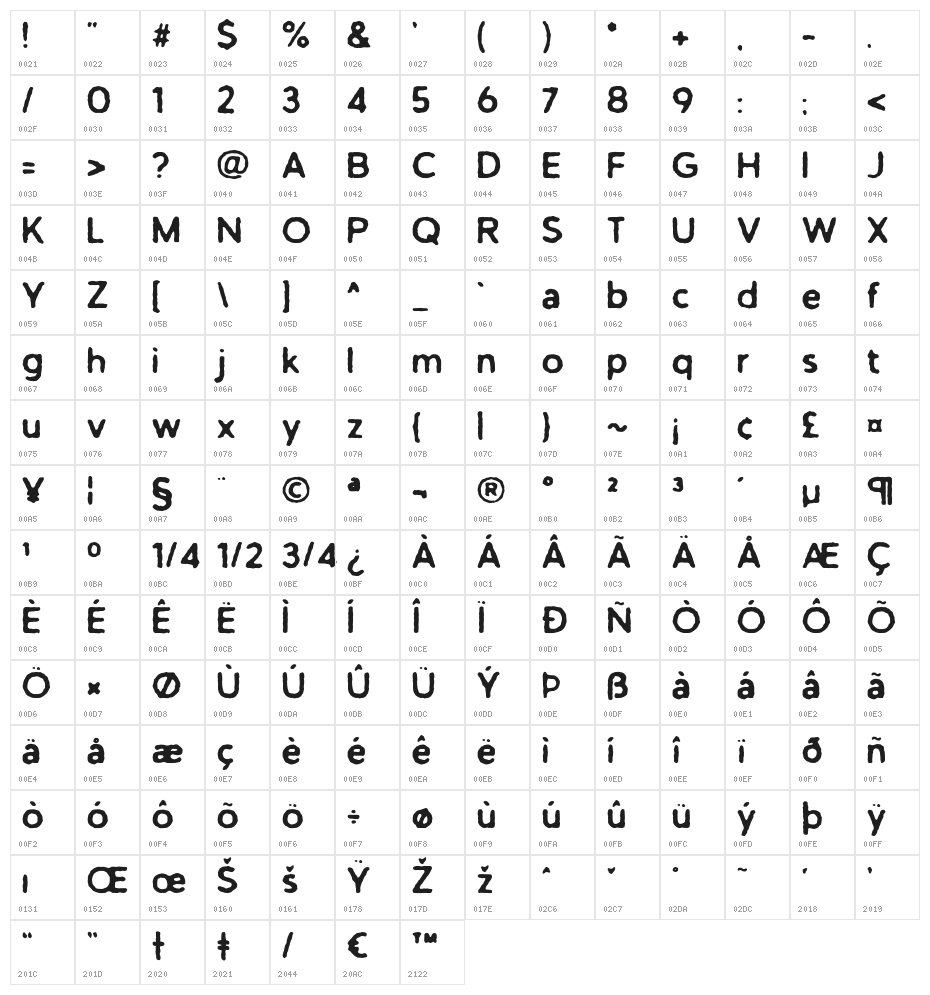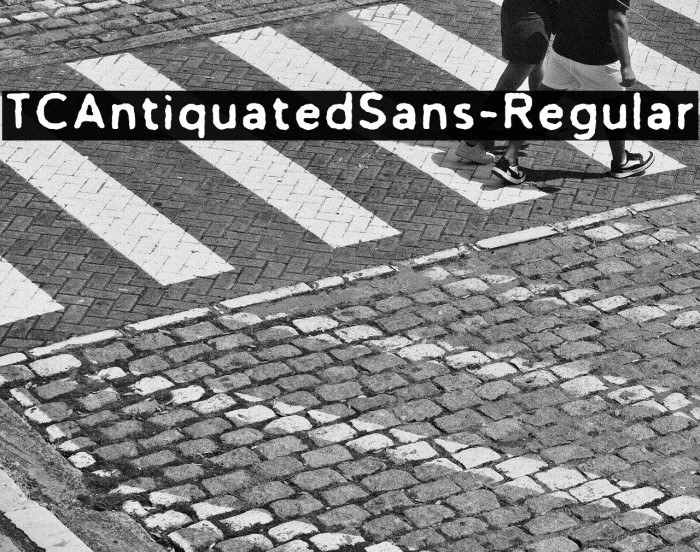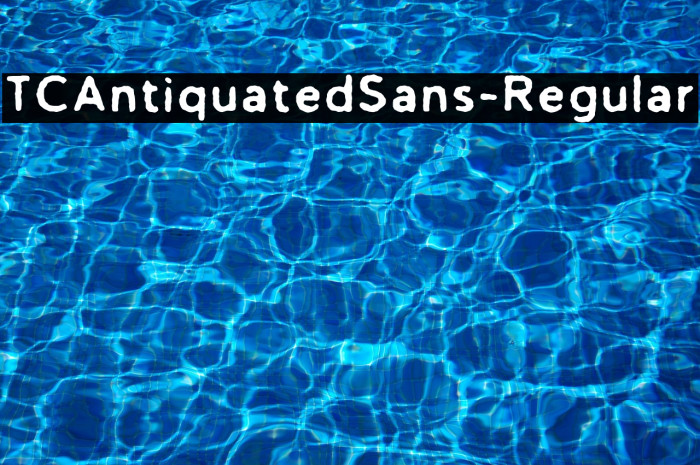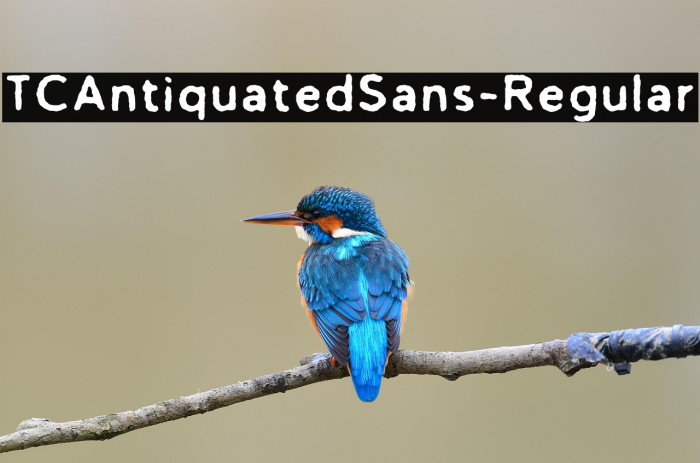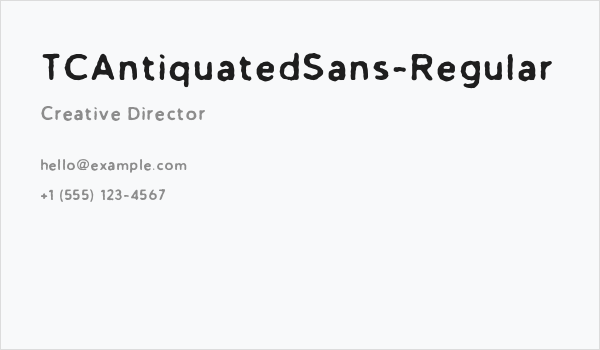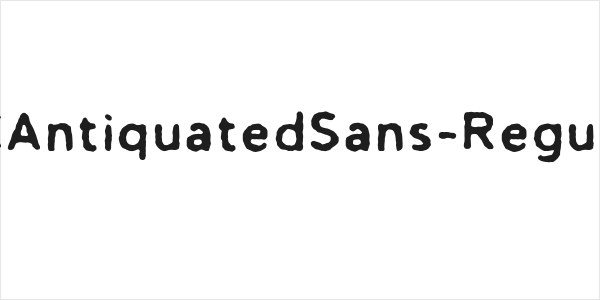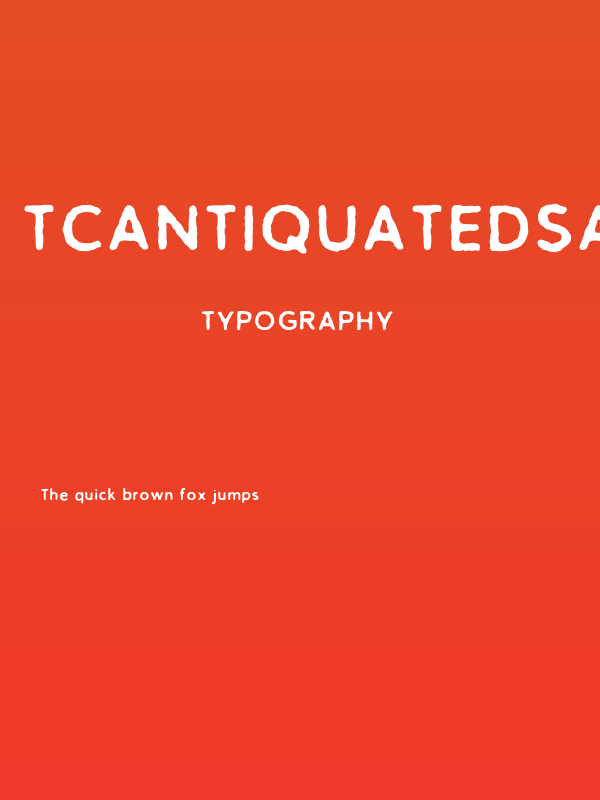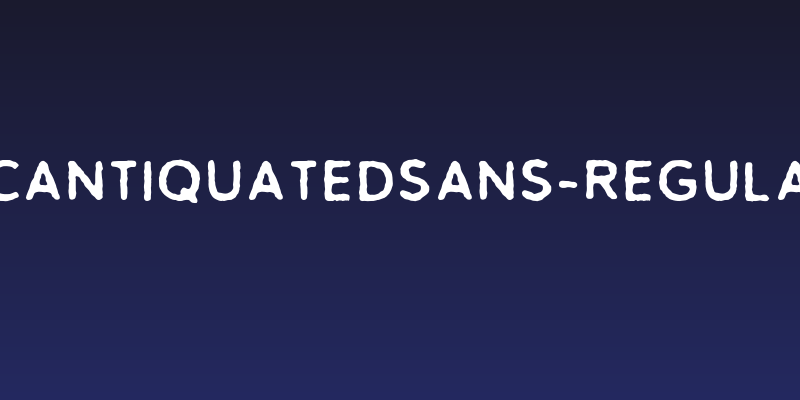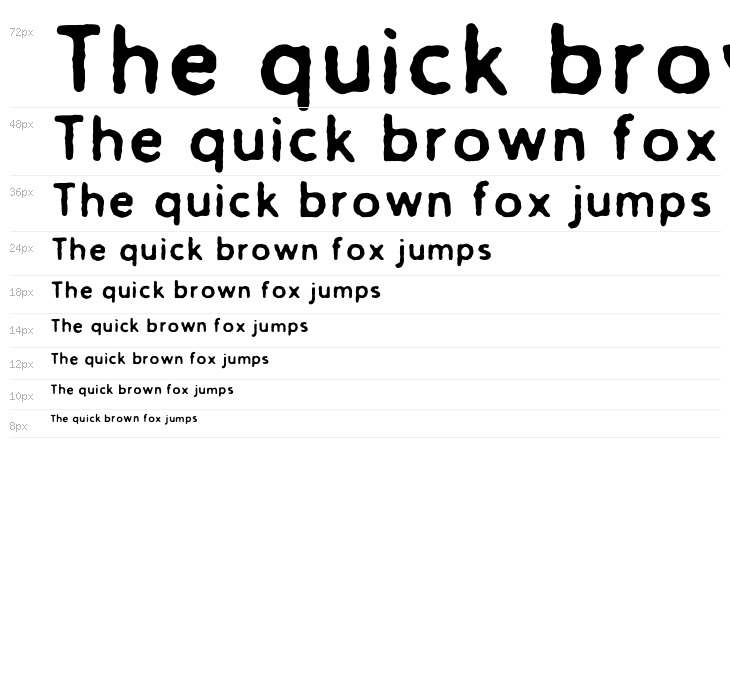
TCAntiquatedSans-Regular Font
TCAntiquatedSans-Regular Description
This font features a unique, hand-drawn aesthetic with slightly irregular strokes, giving it a charming, rustic feel. The characters are bold and rounded, with a playful yet sturdy appearance. The uppercase and lowercase letters maintain a consistent style, while the numbers and special characters blend seamlessly into the overall design. The font's organic look makes it ideal for projects that require a personal touch or an artisanal vibe.
| Overall Style | Rustic, Handcrafted |
| Proposed Projects | Ideal for branding, packaging design, invitations, and posters that require a handcrafted or vintage touch. |